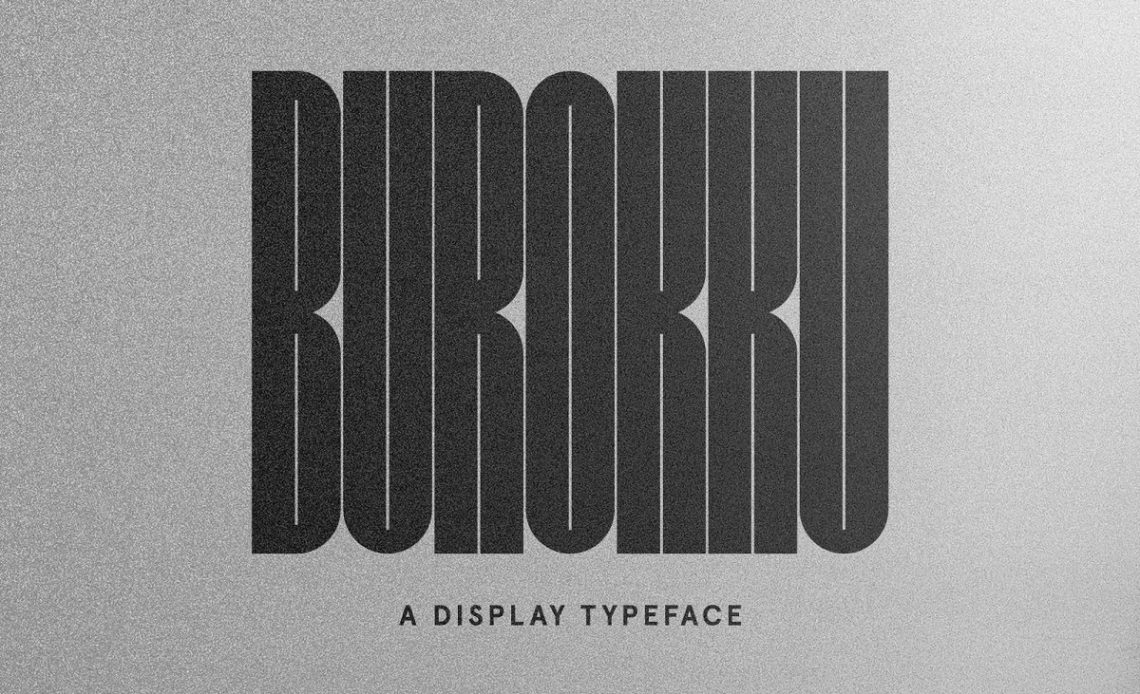
Introducing Burokku Bold Display Font, the captivating masterpiece brought to you by Platform Design. Are you ready to elevate your designs and captivate your audience with its bold and unique style? Look no further, as Burokku is here to make a powerful statement.
With Burokku, your titles will never go unnoticed. This font is specifically designed to create big, expressive titles that demand attention. Whether you're designing a striking poster, a captivating book cover, or a stylish website header, Burokku will add that touch of boldness and uniqueness that will leave a lasting impression.
But Burokku is not just about its striking appearance. It comes fully equipped with plenty of interesting glyphs to play around with, allowing you to bring your creative visions to life. Explore the endless possibilities and let your imagination run wild as you mix and match the various glyphs to create stunning and personalized designs.
Language barriers? Not a problem! Burokku supports a wide range of languages, ensuring that you can reach and engage with audiences all around the world. Break down communication barriers and connect with your target market effortlessly.
At the heart of Burokku is its creator, Platform Design. With their exceptional attention to detail and dedication to delivering top-notch quality, you can trust that Burokku is a font that not only looks amazing but also performs flawlessly. Platform Design's expertise shines through in every curve and stroke, guaranteeing a font that is both visually appealing and technically sound.